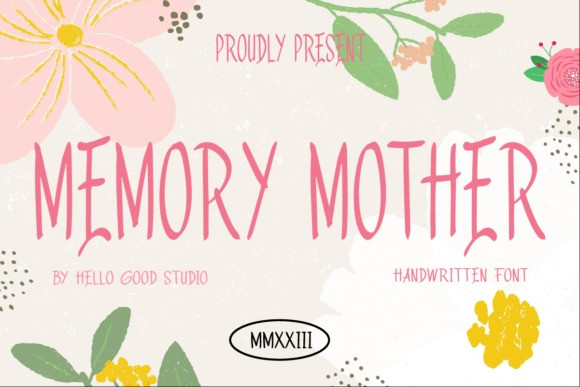
Memory Mother Font
Memory Mother is a handwritten font that is unique and natural because it is done manually on paper and traced directly, so it seems very natural for a font to complement each other perfectly. Together or apart, these fonts are ideal for adding a chic and cheerful touch to your crafts.